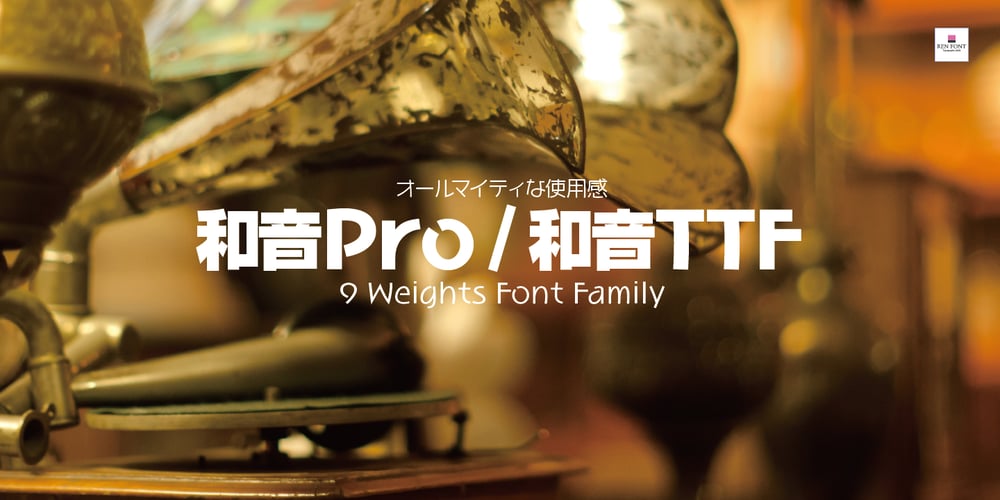
WaonPro Font Family was designed by Kazuo Kanai and published by REN FONT. WaonPro contains 9 styles and family package options. Hello. Welcome to the Foundry “REN FONT”!Each of the typefaces in the Waon family was created based on “Waon”, a winning entry in the typeface category of the “Japan Typography Yearbook 2005” contest held by the Japan Typography Association in 2005.The concept is to “express a music with typeface.This is the painstaking work of our type designer, Kazuo Kanai, who spent more than two years on it.Each of the characters (kanji, hiragana, katakana, Latin letters, symbols, punctuation, application letters, and numbers) is designed to have musical characteristics, and the characteristics of each are harmonized perfectly.This typeface was created by using a mathematical approach to intermediate generation the nine weights, from the thinnest weight “L (Light)” to the thickest weight “U (Ultra)”.The result is truly worthy of the name “Waon = Harmony”. We hope you will find it useful in a variety of situations.The OpenType font “WaonPro JoyoRegular” is a free trial font of Regular weight.Only the regular kanji is available, but other than that, it is the same as the full version. Please try it out.こんにちは。ファウンドリー “REN FONT” へようこそ!和音ファミリーの各書体は、2005年度特定非営利活動法人日本タイポグラフィ協会により開催された「日本タイポグラフィ年鑑2005」コンテストの書体部門入選作「和音」を源流とし、制作されています。コンセプトは「文字で音楽を表現する」。漢字、平仮名、片仮名、欧文、記号類、用途字種、数字の各字種のそれぞれに音楽的特徴をもたせ設計、それぞれがもつ特徴が見事に調和する、制作期間2年以上の全てを注ぎ込んだ当社タイプデザイナー金井和夫渾身の労作です。この書体は、最細ウェイト「L(ライト)」から最太ウェイト「U(ウルトラ)」に至るまで、合計9ウェイトを数学的アプローチで中間生成するという試みのもと、制作されたものです。まさに「和音=ハーモニー」の名にふさわしい仕上がりとなっています。ぜひ、さまざまなシーンでご利用ください。OpenType の「和音Pro JoyoRegular」は Regular ウェイトの無料のトライアルフォントです。漢字は常用漢字のみですが、それ以外は製品版と変わりありません。どうぞお試しください。